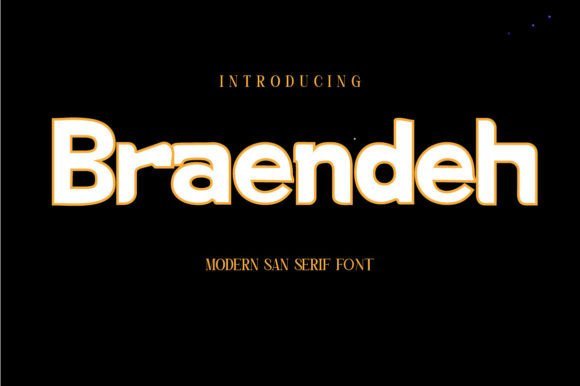
Unlock the Power of Modern Design with Braendeh Font
Have you ever stared at a blank page, waiting for inspiration to strike? The cursor blinks, and you’re left wondering where to begin. Suddenly, a burst of creativity hits you – the perfect font to elevate your design. For many, that font is Braendeh. This sleek, sans-serif masterpiece is perfect for making a statement, whether it’s a bold logo, eye-catching magazine cover, or attention-grabbing social media post.
Braendeh Font is more than just a stylish addition to your designs – it’s a professional-grade tool that brings a touch of class to any project. With its unique style and smooth curves, Braendeh Font is the perfect choice for designers looking to make a lasting impression.
Braendeh Font Key Features
- Font Family: Braendeh is a sans-serif font family that includes multiple weights and styles, offering a wide range of design possibilities.
- Unique Characteristics: Braendeh Font features a unique blend of modern and minimalist design elements, making it ideal for contemporary and creative projects.
Braendeh Font Review
I recently had the chance to work with the Braendeh font, and overall, I was impressed with its unique character. ✨ One of the things that stood out to me was its versatility – it can be used for both body text and headings, making it a great choice for designers who want a single font to cover all their bases. ✨ The font also has a clean, modern aesthetic that makes it easy to read, even at smaller font sizes.
However, there are a few limitations to consider. ⚠️ First, the Braendeh font can feel a bit too minimalist for some projects. ⚠️ If you’re looking for a font with a lot of personality or flair, this might not be the best choice. Additionally, the font’s uppercase letters can feel a bit disconnected from the lowercase letters, which can make it harder to create a cohesive look.
Despite its limitations, I think the Braendeh font is a solid choice for designers who want a clean, modern look. It’s not perfect, but it’s a great option for projects where simplicity is key.
- Unique character and versatility
- Clean, modern aesthetic
- Easy to read, even at smaller font sizes
- May not be suitable for projects that require a lot of personality or flair
- Uppercase and lowercase letters may not feel cohesive
Braendeh Font: A Practical Application Guide
Getting the Most Out of the Braendeh Font
For the best results, use the Braendeh Font in conjunction with other elegant and modern design elements. Experiment with different font sizes, colors, and styles to create a cohesive and visually appealing design.
The Braendeh Font is ideal for use in:
- Book covers and magazine layouts
- Web design and e-commerce platforms
Alternatives to Braendeh Font for Designers
Montserrat Font is a sans-serif typeface designed by Julieta Ulanovsky. It is suitable for headings, titles, and body text in modern websites and applications. Montserrat Font is a great alternative to Braendeh Font as it offers a similar urban feel and geometric style, but with a more modern and sleek appearance.
Comparison to Braendeh Font: Montserrat Font is more modern and geometric, with a wider range of weights and styles. It is also more suitable for digital applications and websites.
Lato Font is a sans-serif typeface designed by Łukasz Dziedzic. It is suitable for body text, titles, and headings in modern websites and applications. Lato Font is a great alternative to Braendeh Font as it offers a clean and elegant appearance, with a wide range of weights and styles.